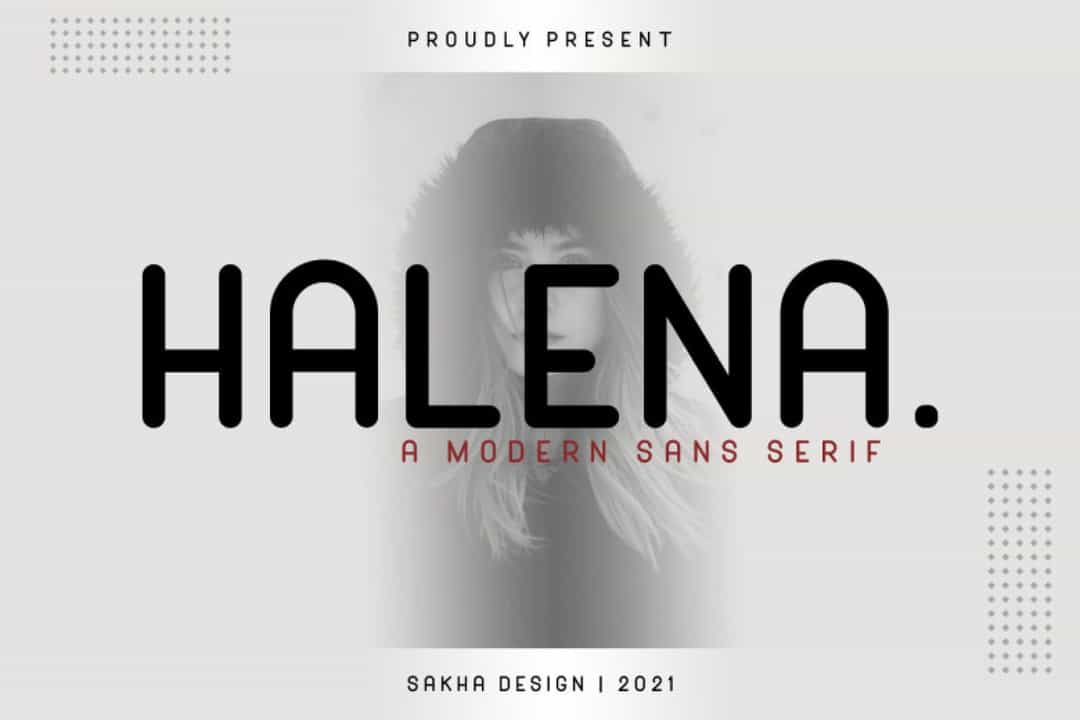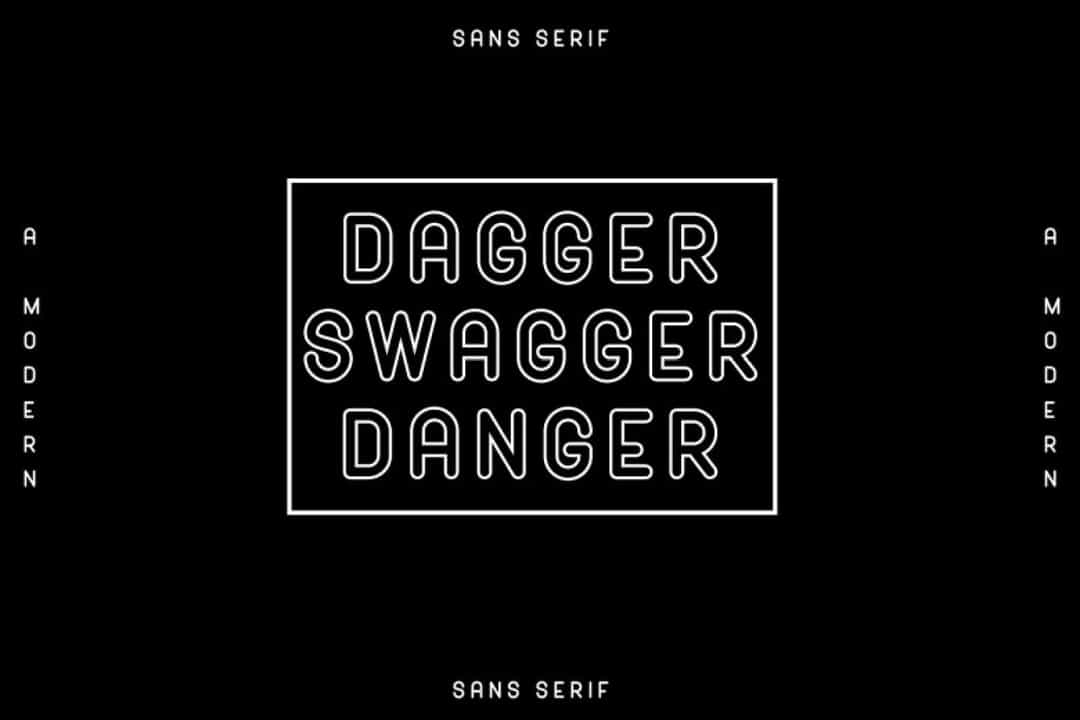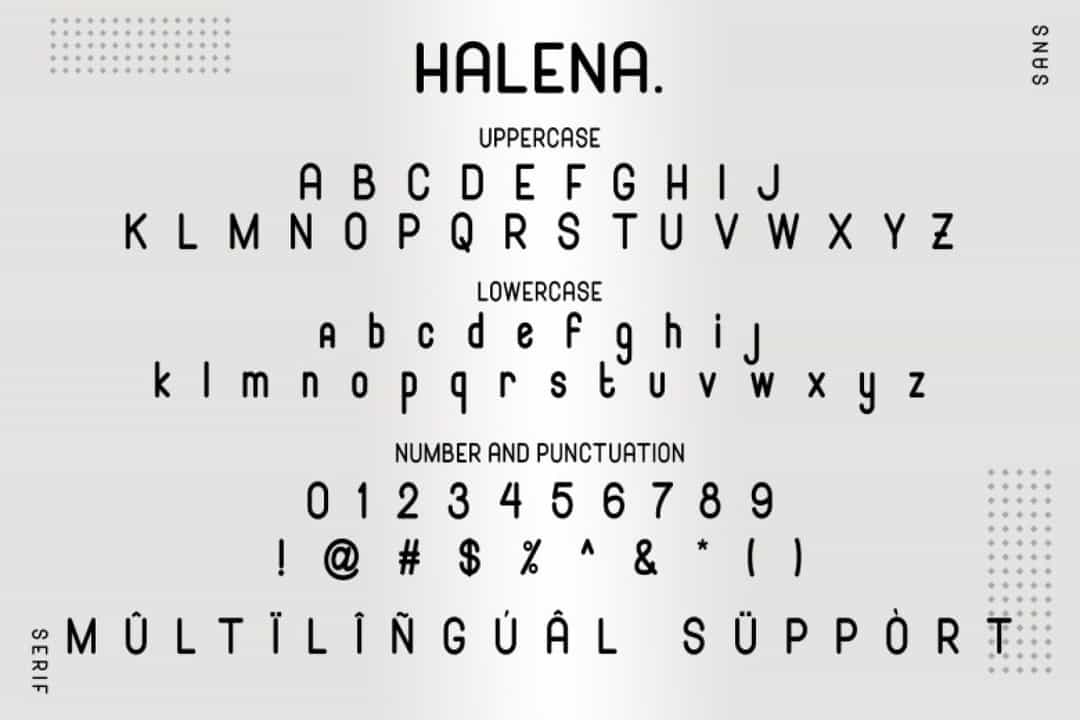
Halena is an adaptable sans serif font designed to adapt to any situation or event, from logo design to digital signage. The font comes complete with uppercase, lowercase and numeric symbols – ideal for many styles due to its simple yet clean style. Halena will become your go-to font whatever the occasion!